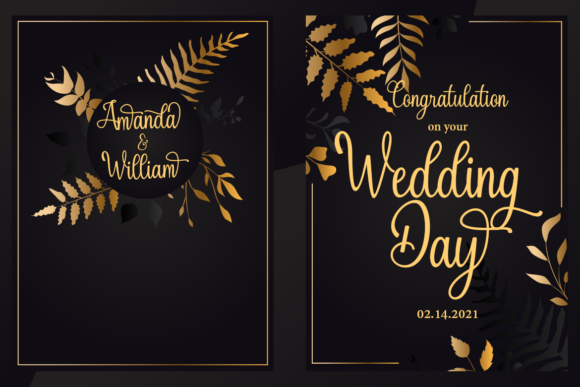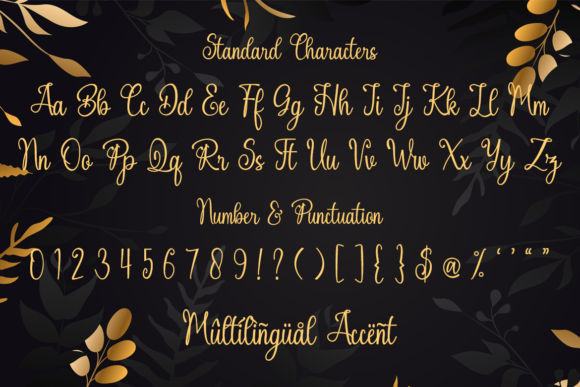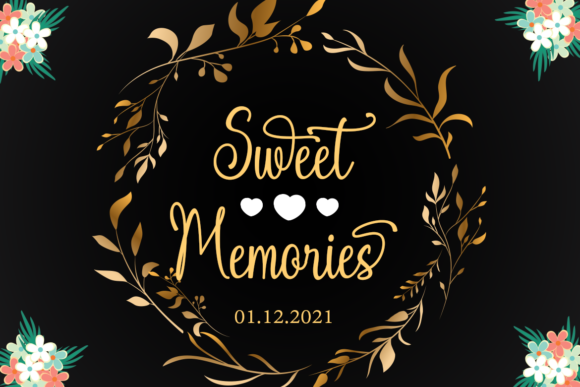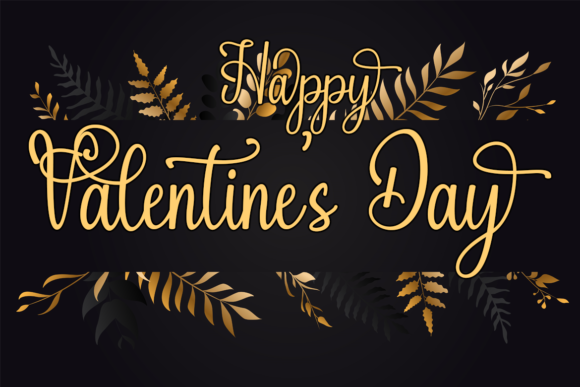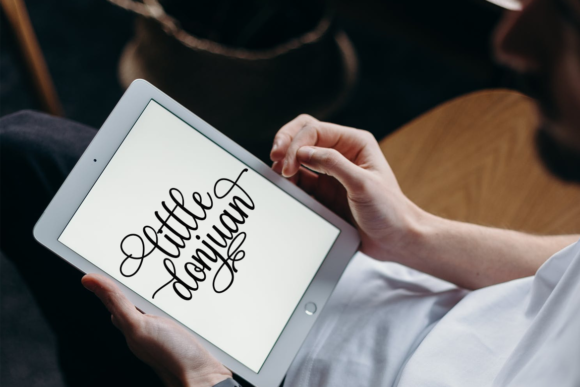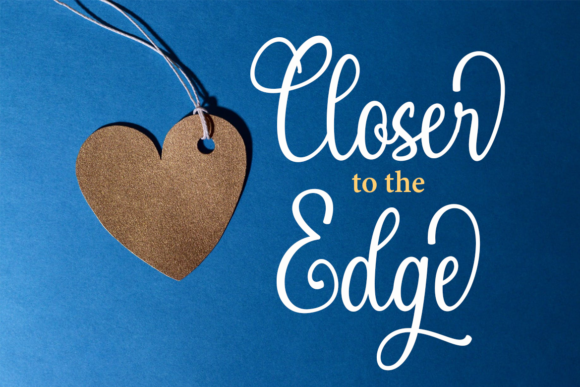
Introduction to Little Donjuan Font
Little Donjuan is a ravishing, graceful and cursive handwritten font.
It has beautiful and well balanced characters and as a result, it matches a wide pool of designs Fall in love with its completely different and timeless style and use it to create spectacular designs.